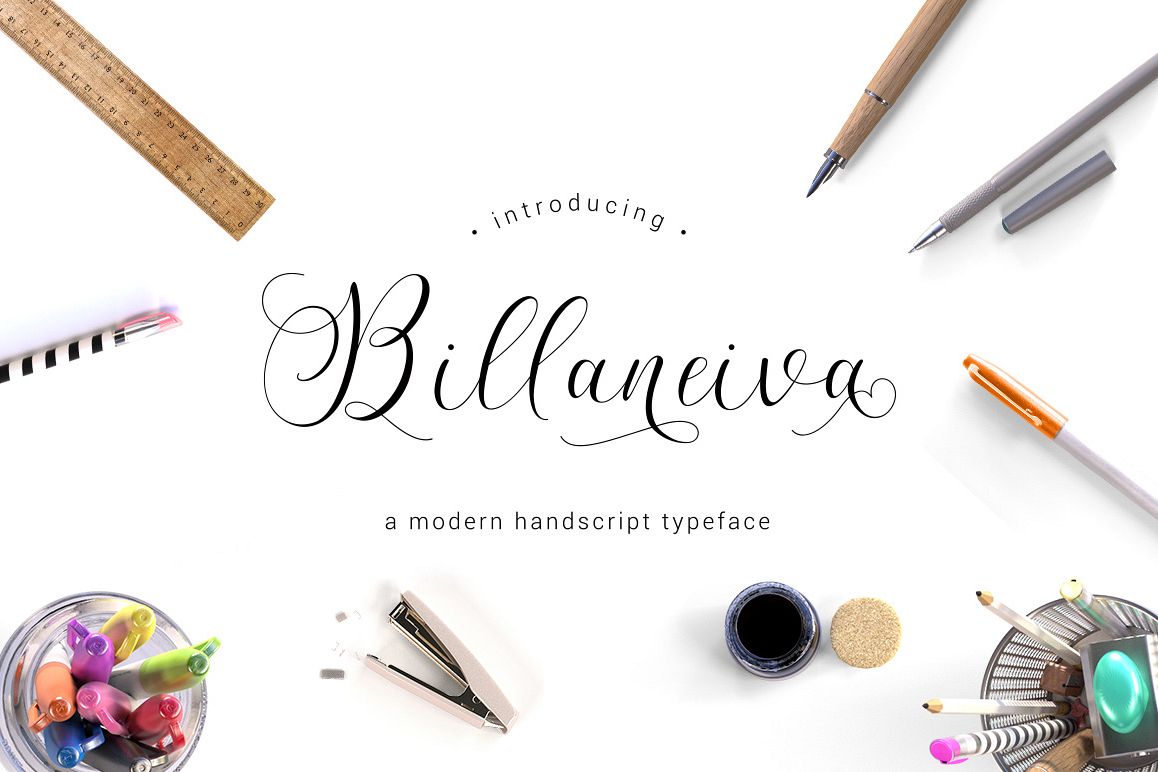
Billaneiva Typeface
Hello world..!! this is Billaneiva typeface, simple and easy to create awesome lettering, just type your words and then you will immediately see the great results.
Comes with upper and lowercase characters, large set of punctuation glyphs, numerals, and supports international languages. Stylistic alternates for several key lower case characters are also available, accessible in the Adobe Illustrator Glyphs panel.